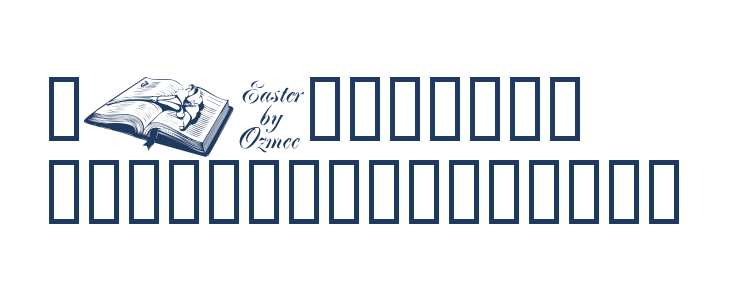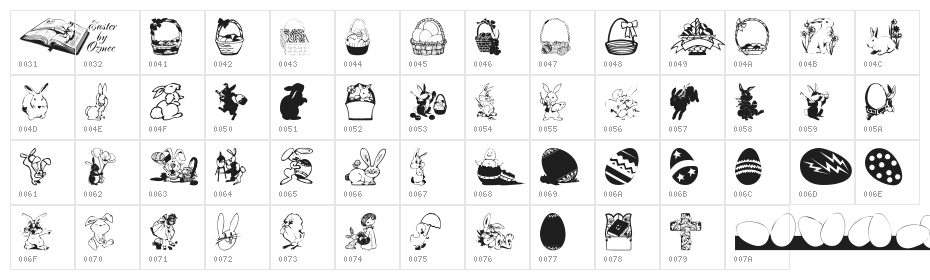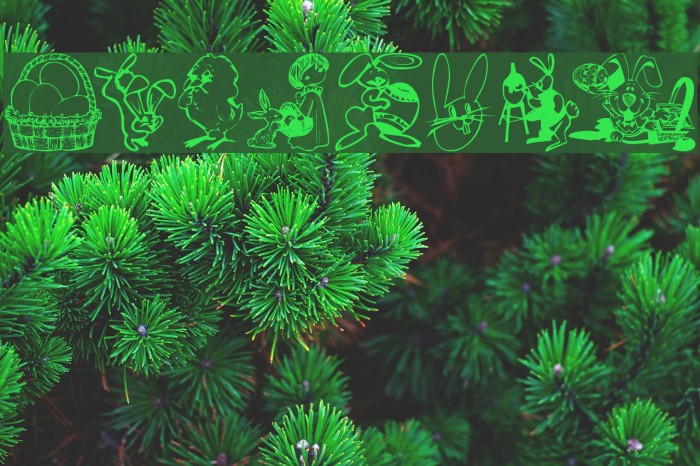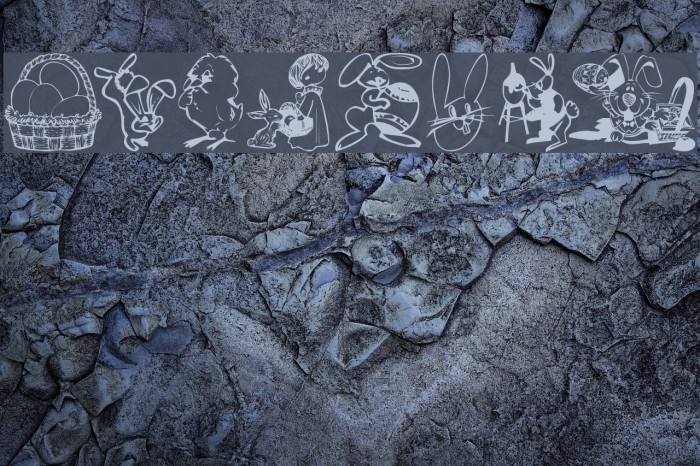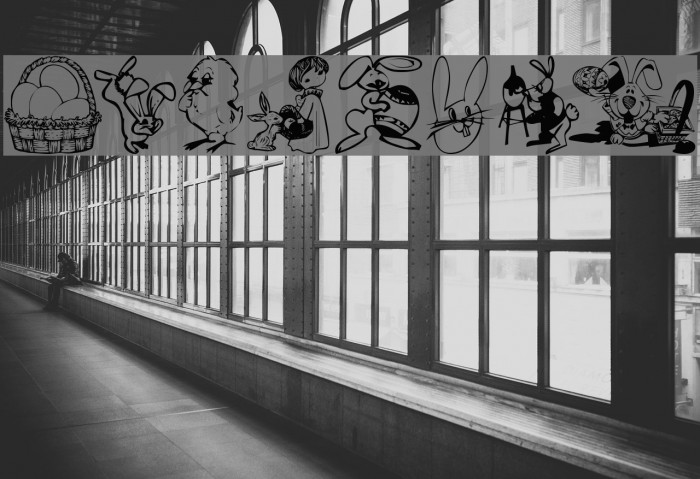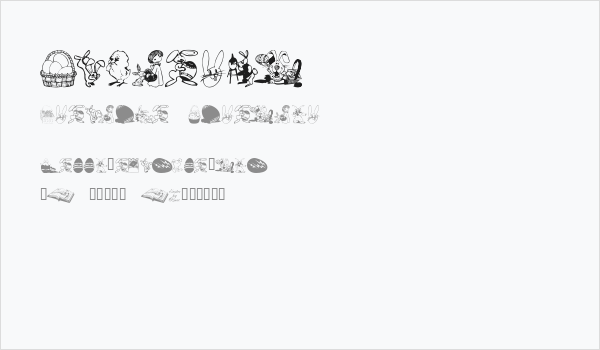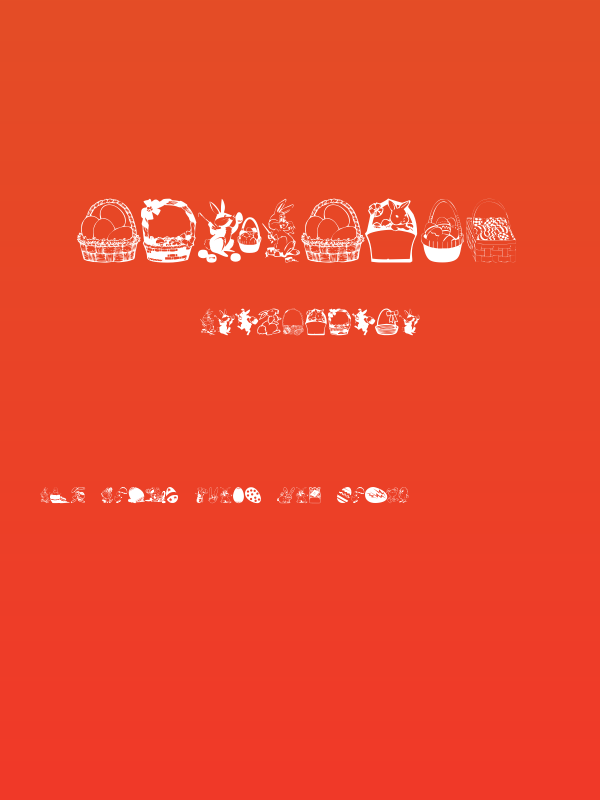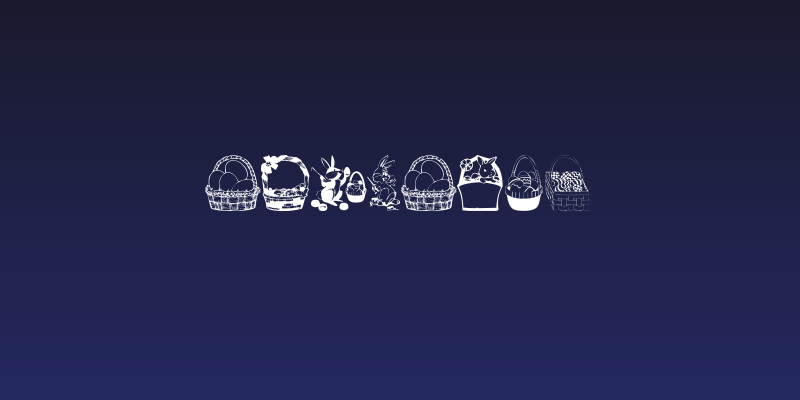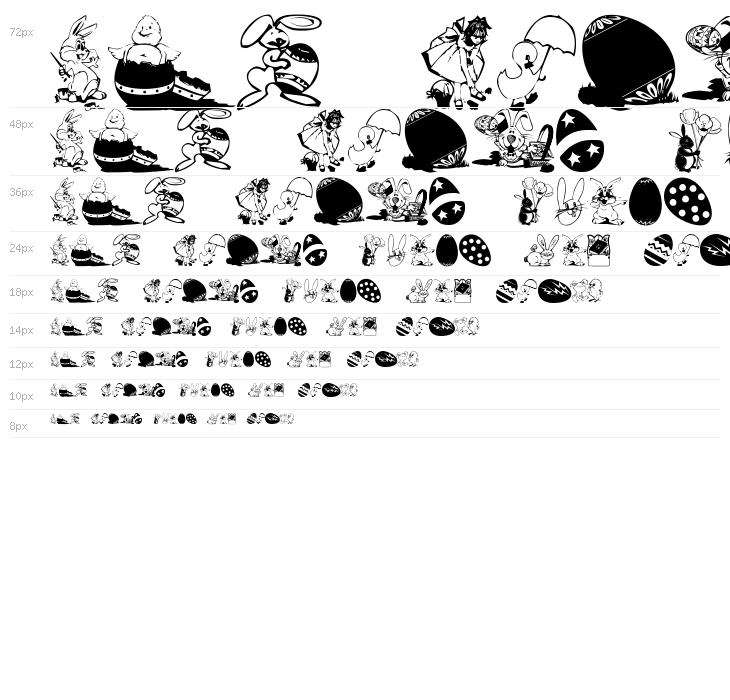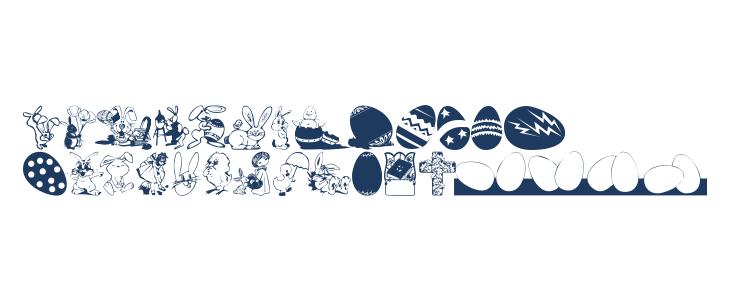
Easterdc Font
Easterdc Description
A decorative display font featuring detailed Easter-themed illustrations such as baskets, bunnies, eggs, and festive scenes, with each character represented by a unique graphic rather than traditional letterforms.
| Overall Style | Decorative, Playful, Thematic |
| Use Case | Decorative elements, Themed graphics, Not suitable for body text |
| Proposed Projects | Holiday cards, event flyers, children's crafts, party invitations, festive decorations. |